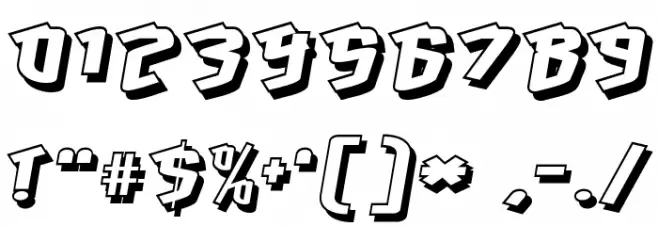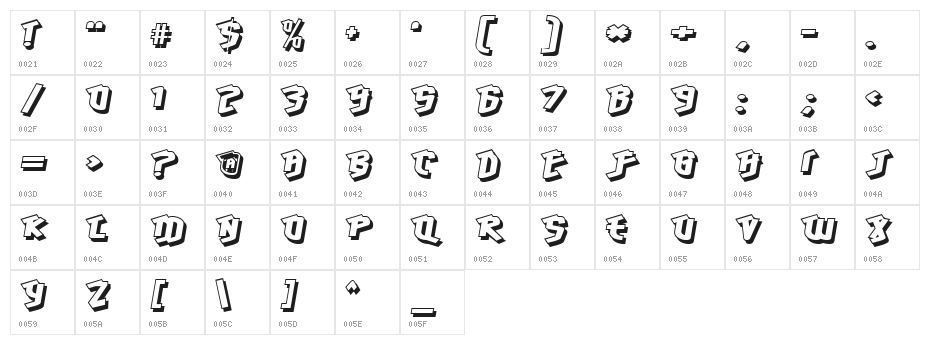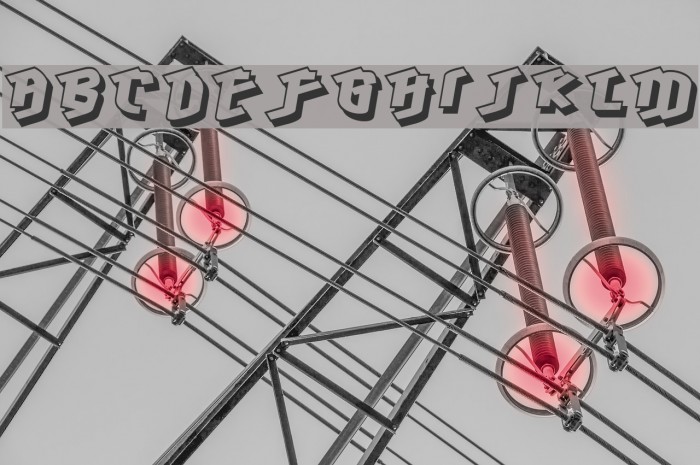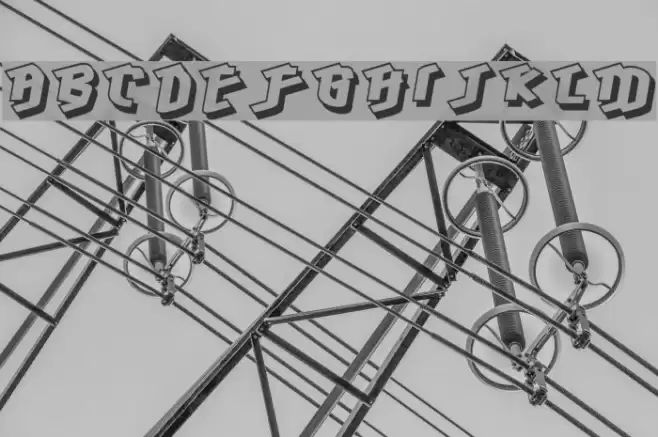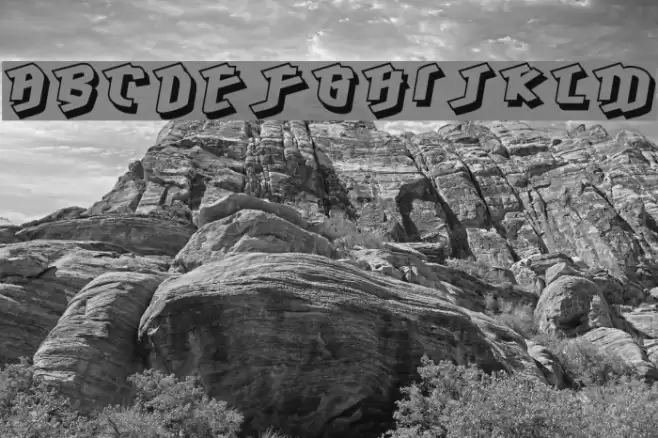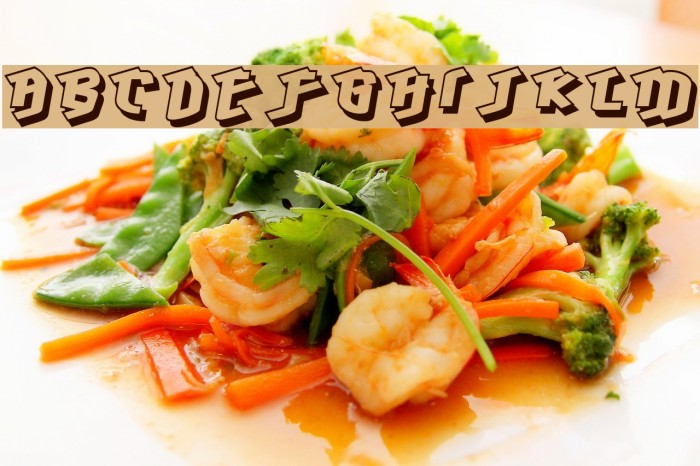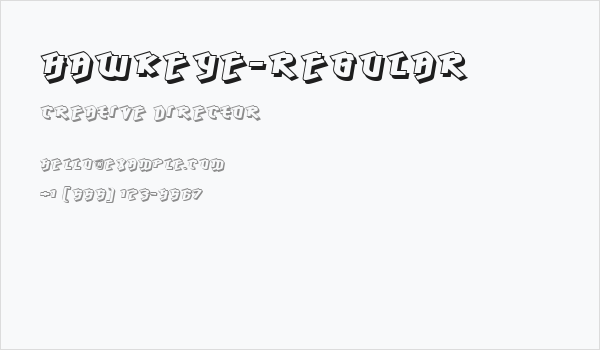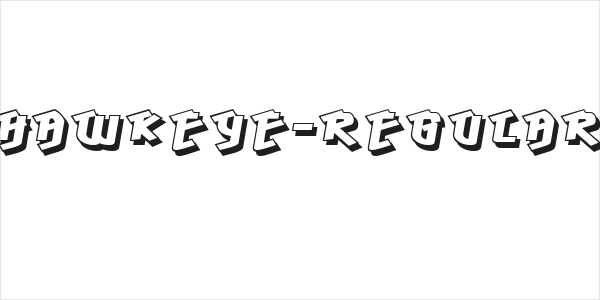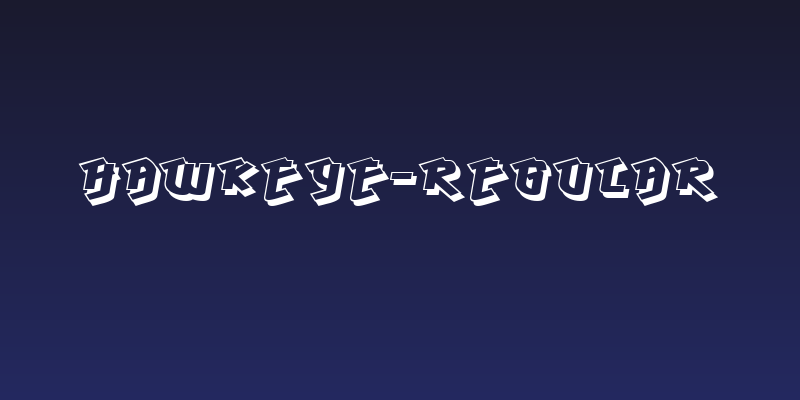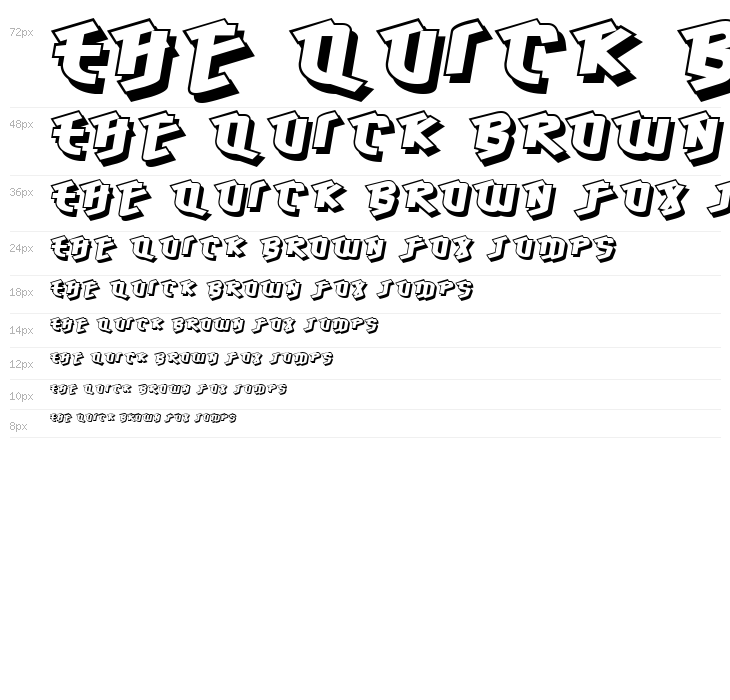
Hawkeye-Regular Font
Hawkeye-Regular Description
This font features a bold, dynamic style with a strong 3D effect, making each character appear as if it's leaping off the page. The letters are angular and geometric, with sharp edges and a consistent shadow that enhances the three-dimensional illusion. The uppercase and lowercase letters maintain a uniform style, while the numbers and special characters are crafted to match the bold aesthetic. This font's unique design is eye-catching and memorable, perfect for projects that require a standout typeface.
| Proposed Projects | Ideal for posters, logos, video game titles, and any design needing a striking, bold typeface. |